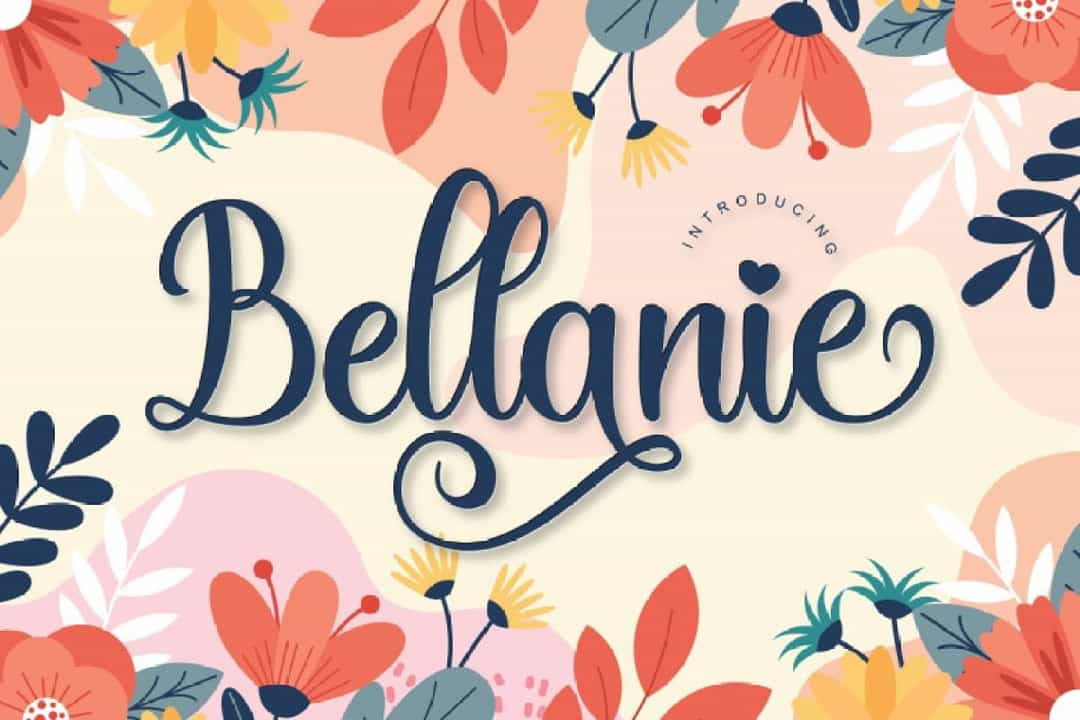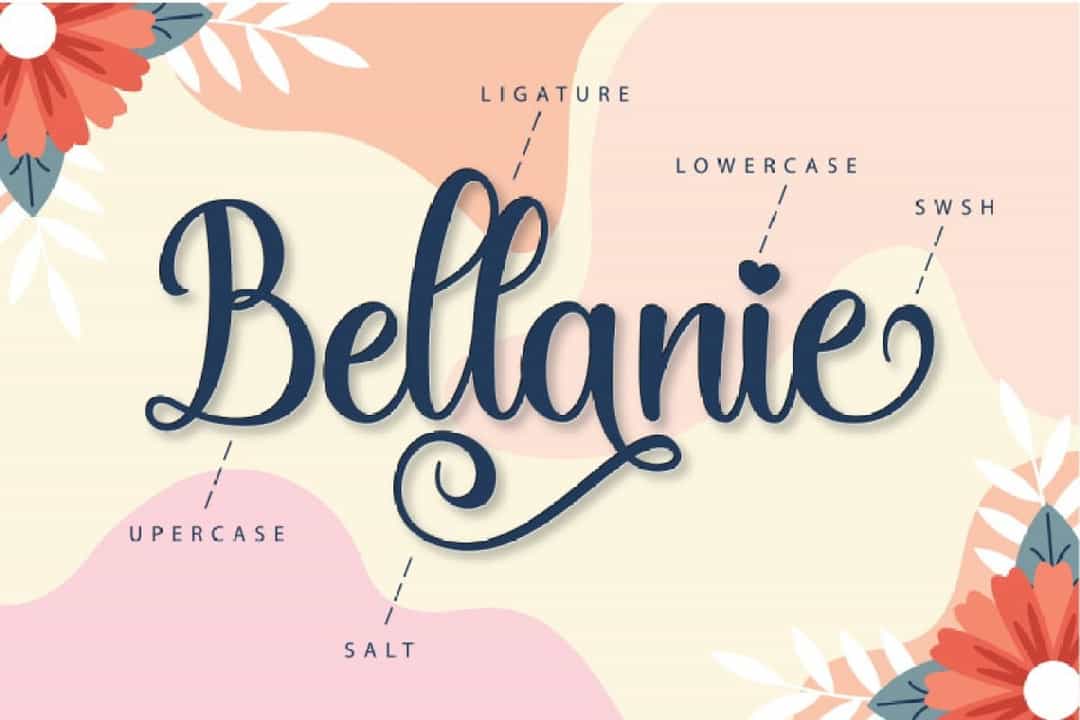
Bellanie is a beautiful calligraphy font that has a written in style which makes it ideal for creating wedding invitations, thank you cards, quotes, greeting cards, and various branding projects that need the handwriting touch.